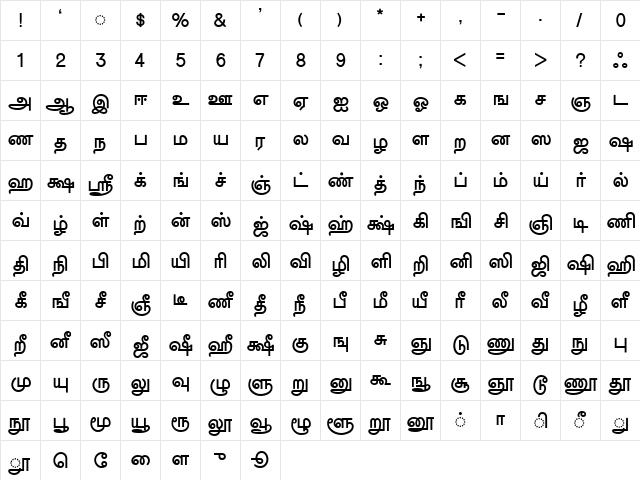
IdsTamil_TG_1_ Bold
Design Context for IdsTamil_TG_1_ Typeface
IdsTamil_TG_1_ is a composed and adaptable typeface that performs quietly and consistently across a wide range of design contexts. The heavy weight commands attention and anchors typographic hierarchies.